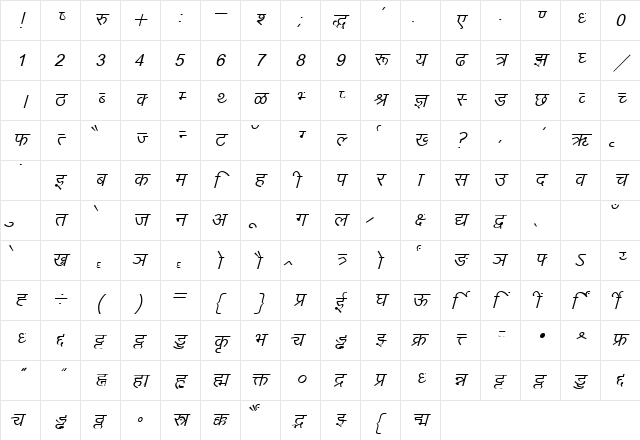
DevLys 010 Italic
Design Context for DevLys 010 Typeface
DevLys 010 takes a measured approach to typography — its balanced proportions and neutral character make it a reliable workhorse for both digital and print work. The dynamic lean of this cut emphasises speed and emphasis in any layout.
Pro Tip: Use DevLys 010 for emphasis, pull quotes, and subheadings where its slanted energy can add rhythm to the layout.